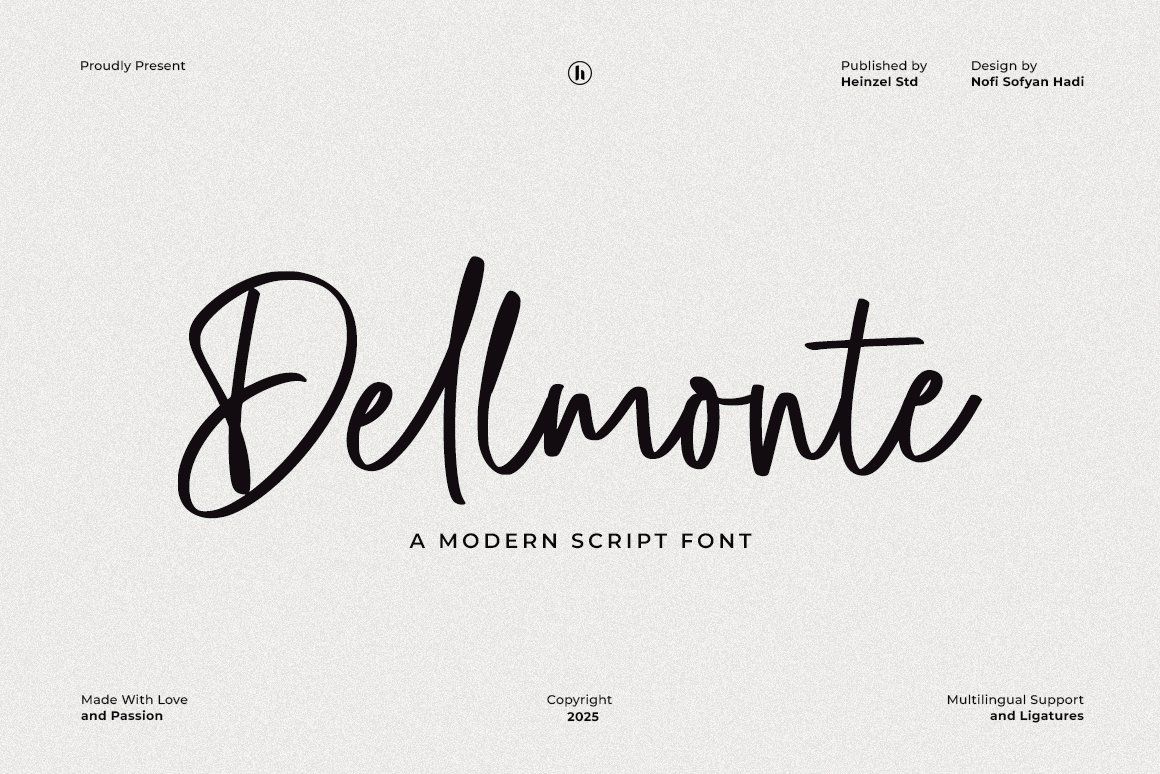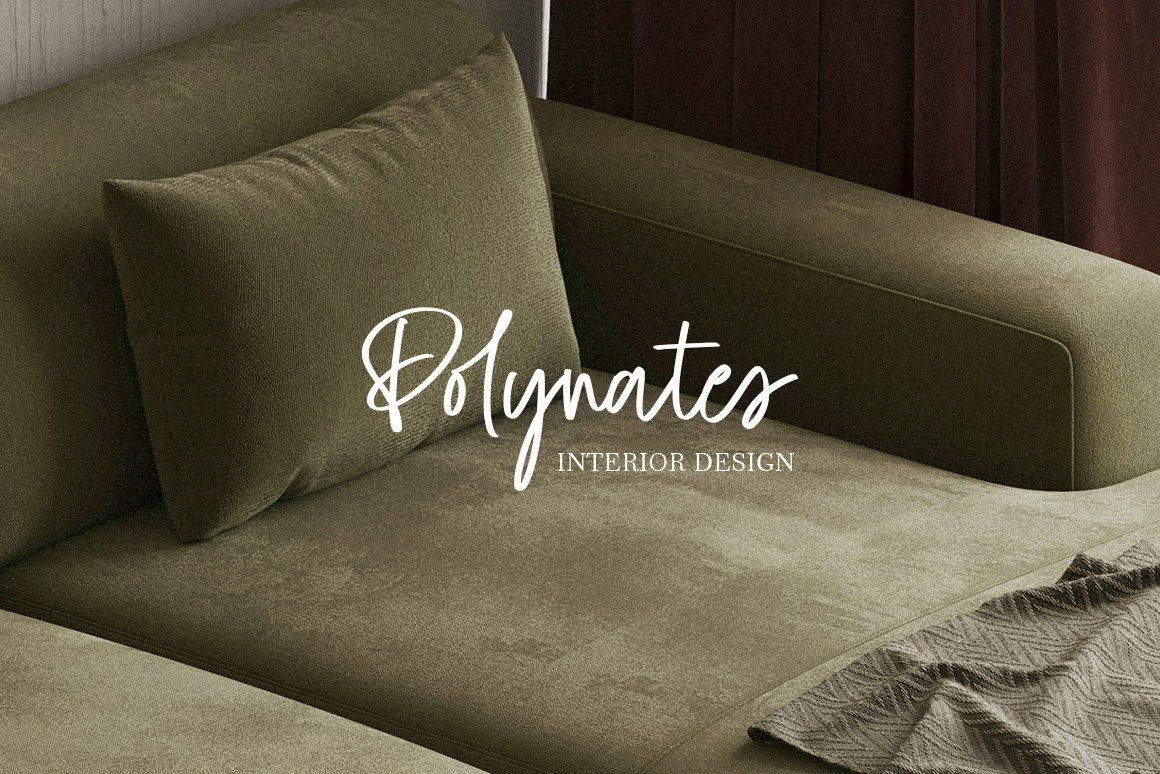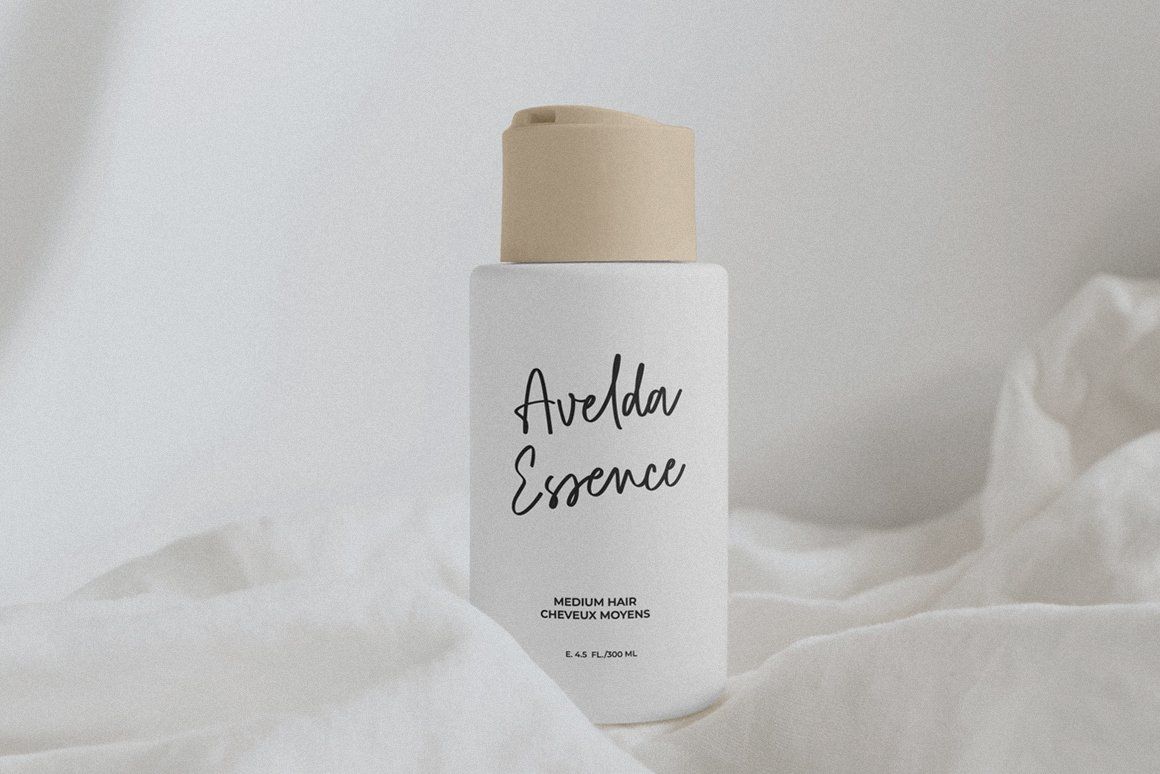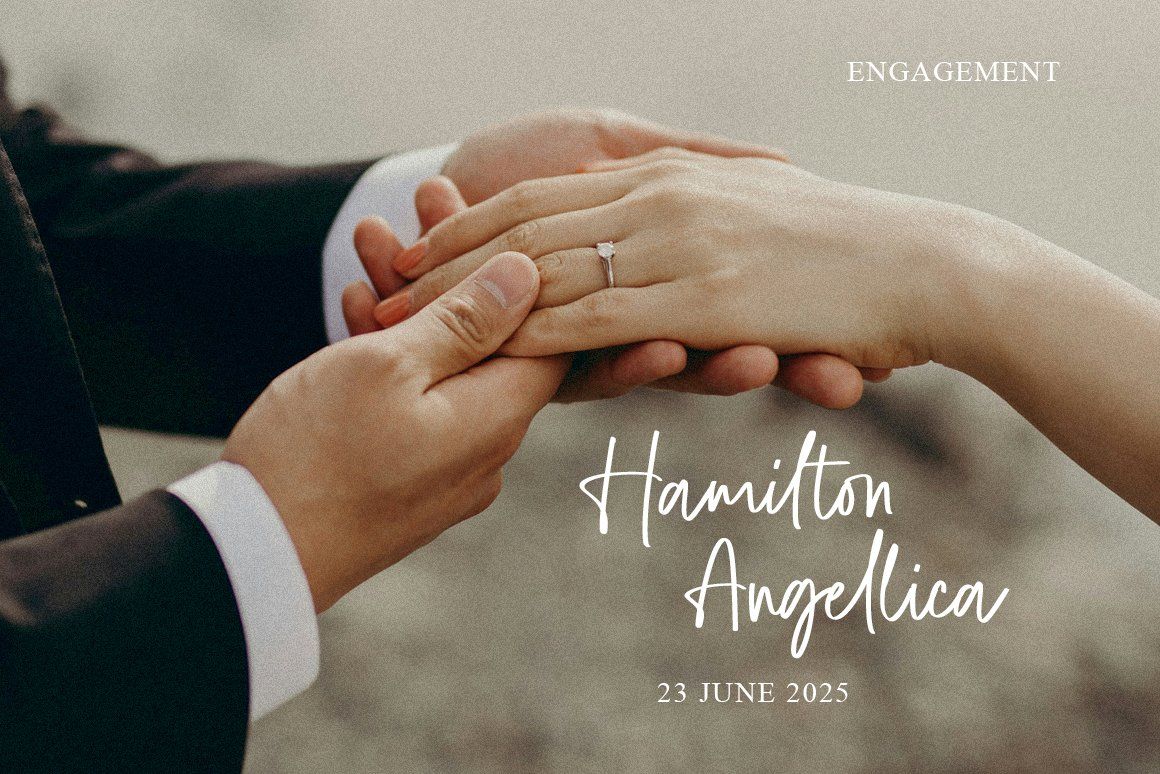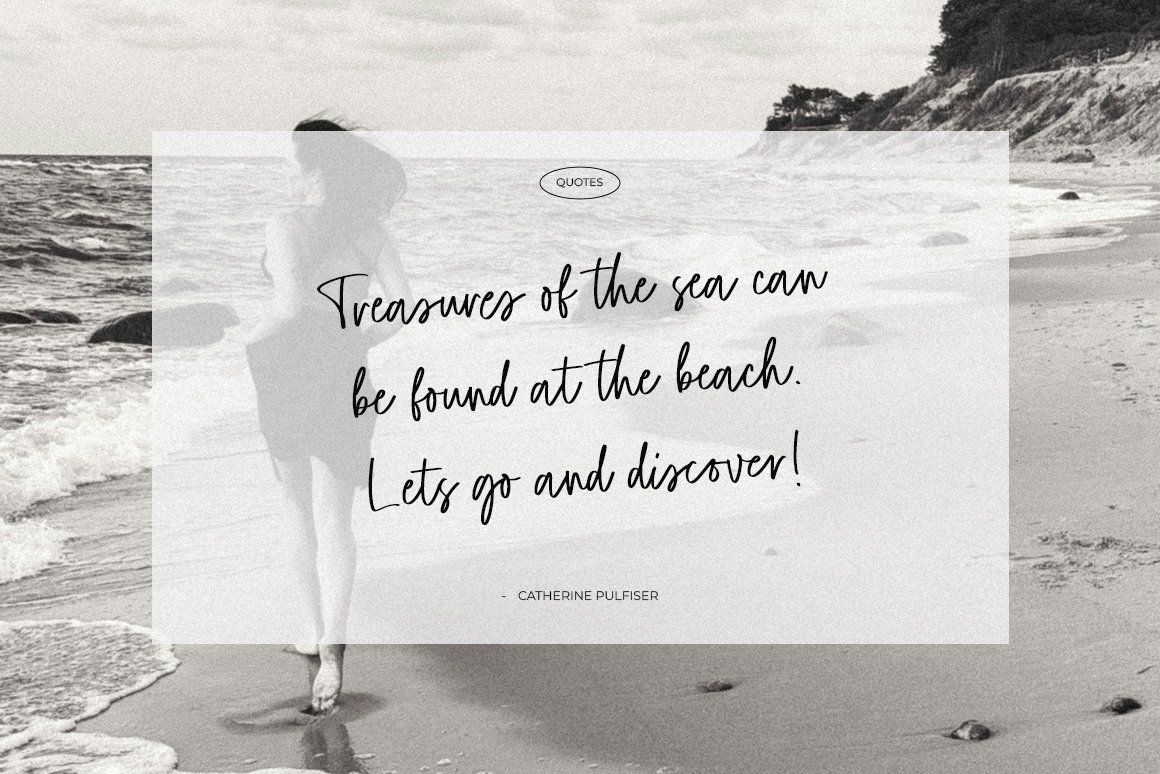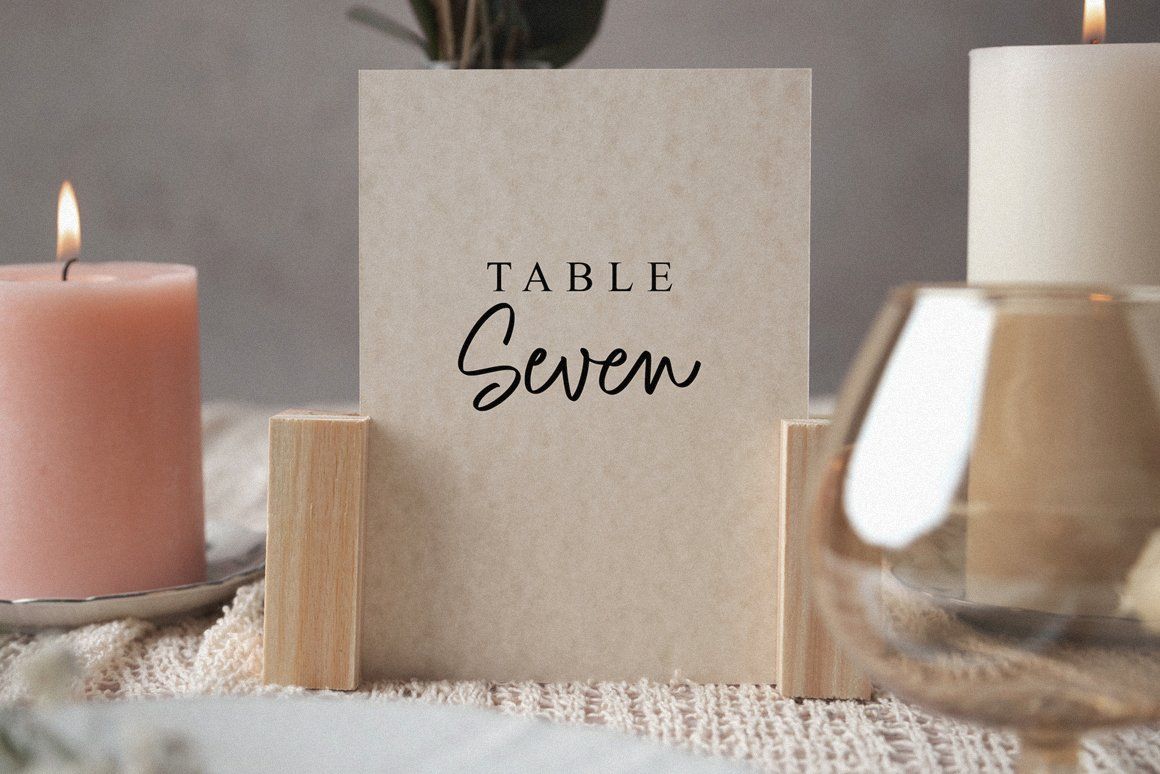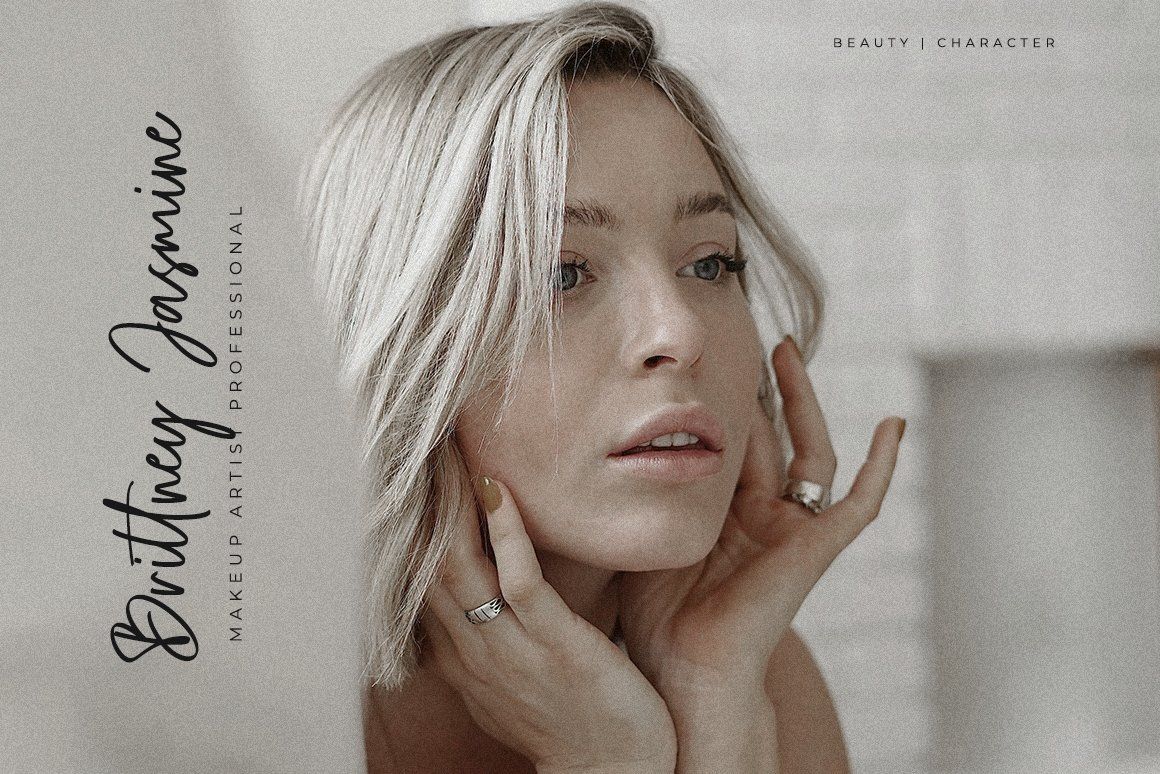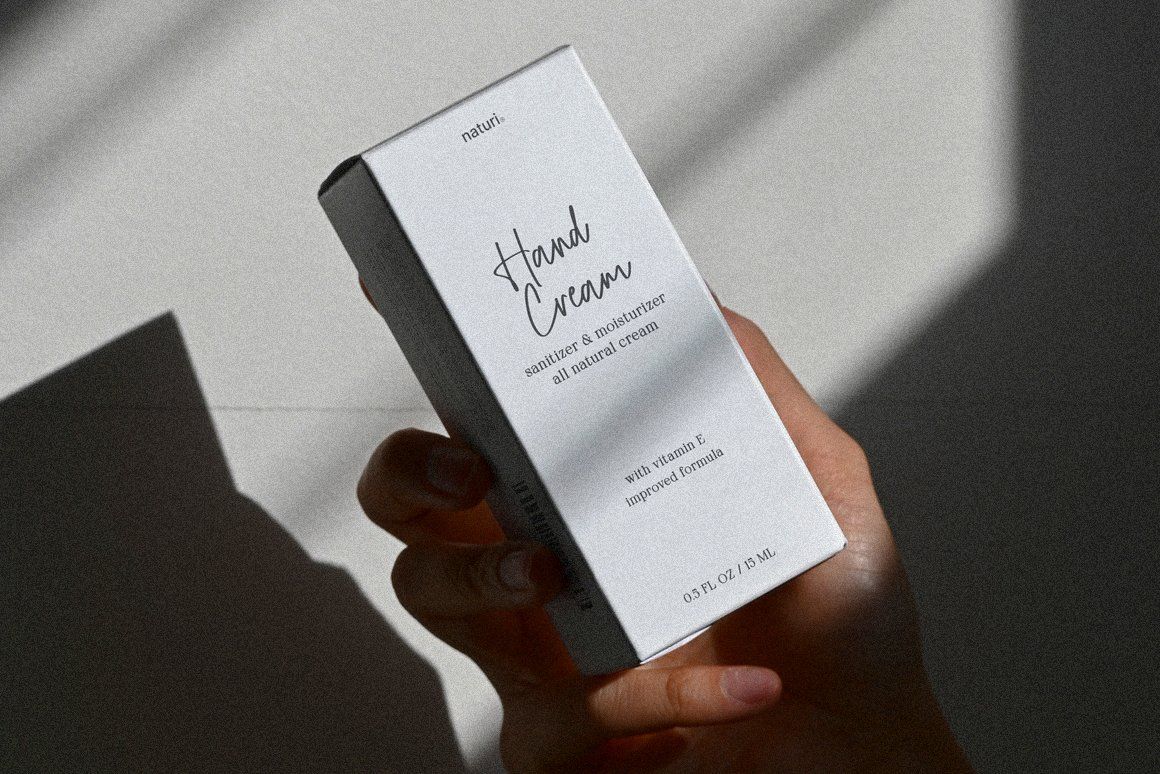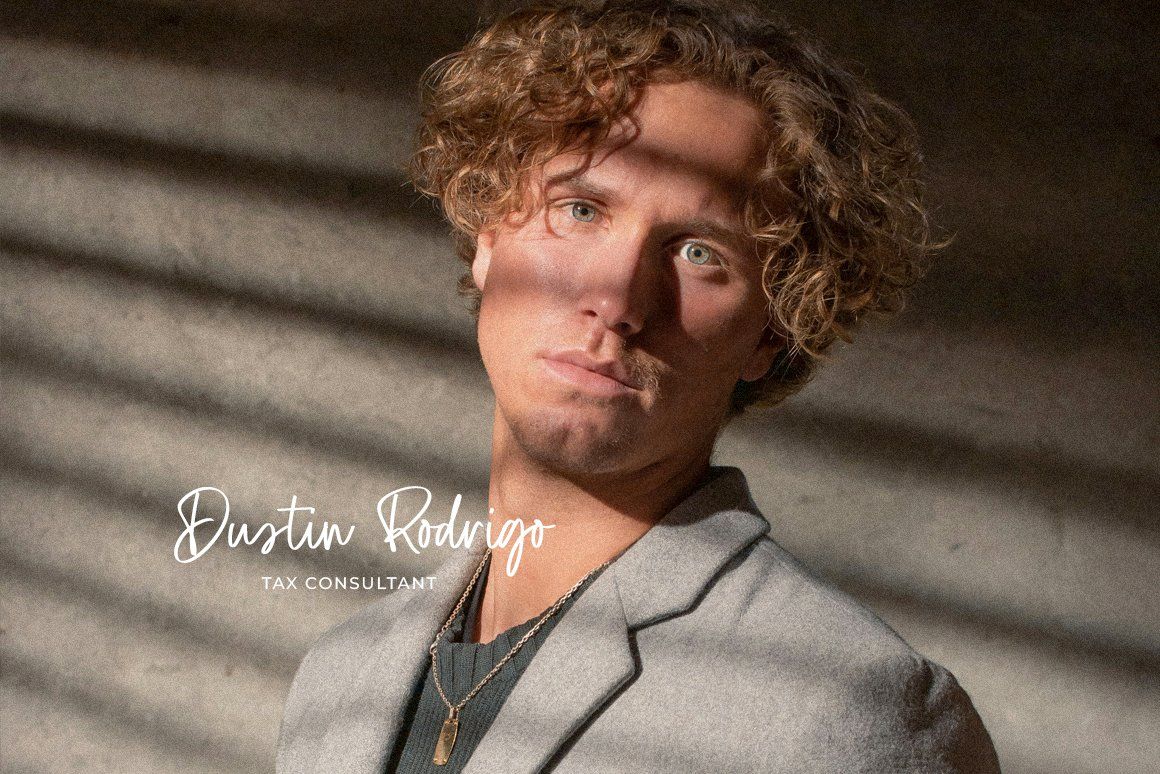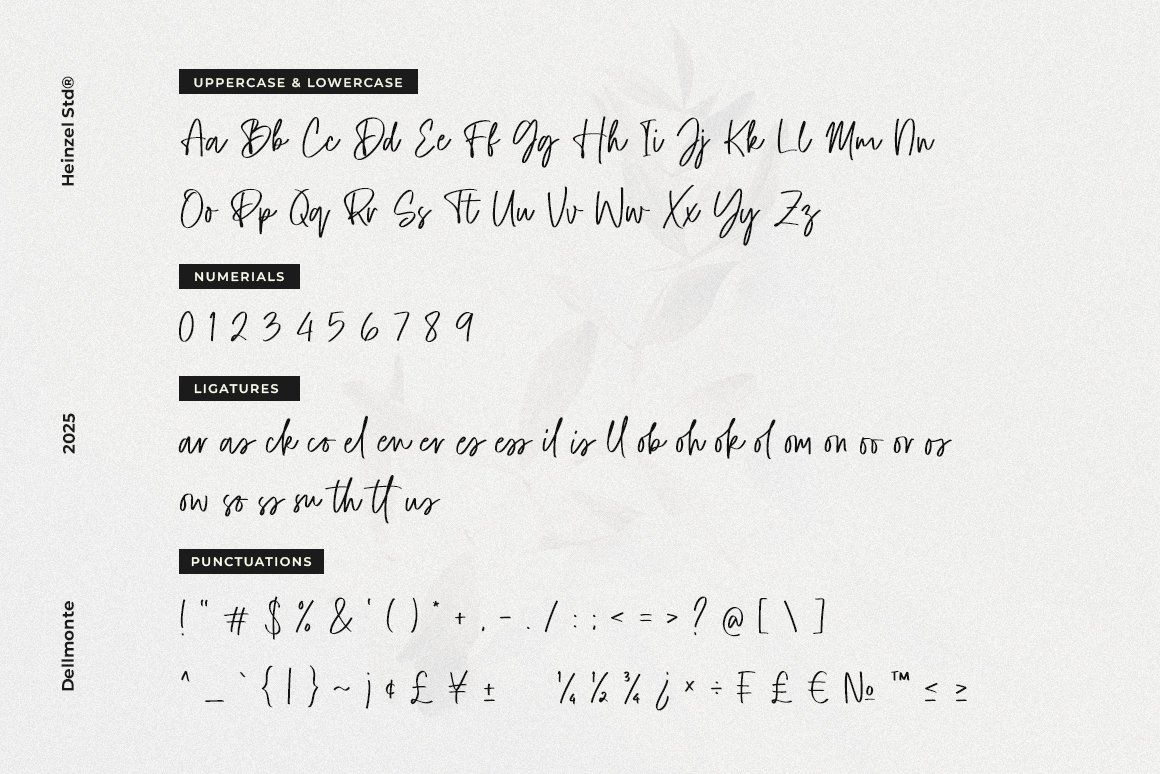
Dellmonte – A Casual Script Font Full of Elegance and Personality
Typography is more than just letters on a screen—it’s a form of visual storytelling. When it comes to creating designs that feel personal, stylish, and contemporary, script fonts often steal the spotlight. That’s why we are excited to introduce Dellmonte, a casual script font crafted with love, passion, and attention to detail.
The Beauty of Dellmonte
Dellmonte is a handcrafted script font designed to bring an elegant yet casual touch to your creative projects. With its smooth curves, balanced strokes, and natural flow, Dellmonte perfectly blends modern design with a handwritten charm. Whether you’re working on branding, invitations, social media, or packaging, this font adapts beautifully across a wide range of applications.